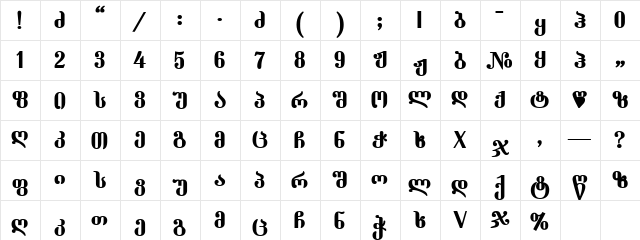
Dumbadze-ITV Bold
Design Context for Dumbadze-ITV Typeface
Dumbadze-ITV offers clean, dependable letterforms without strong stylistic allegiance, making it a practical choice for designers who need flexibility. Its bold stroke weight gives it real presence on the page.